Introducing Variable Fonts
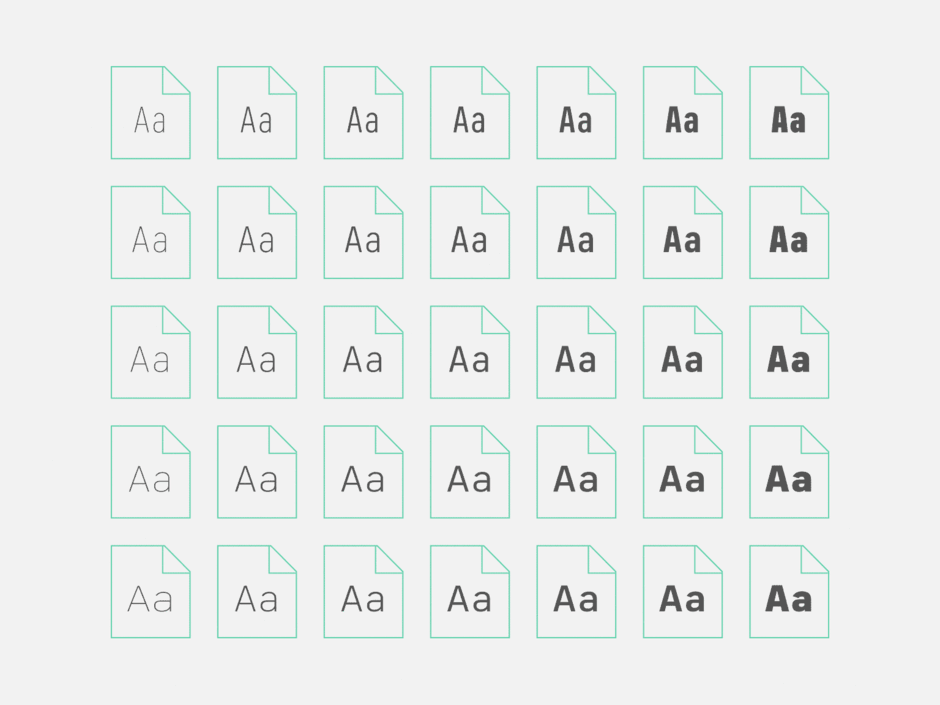
Introducing Variable Fonts
Somewhere between the death of David Bowie and the election of Donald Trump, we all started using our mobile phones far more than our desktops to access the internet.
In 2016, a year that many have hailed as one of the “worst years in history” for its political upheaval, terrorist attacks, natural disasters and untimely celebrity deaths, mobile internet usage overtook desktop for the first time. And according to this year’s Wolfgang Digital KPI Report, 63% of all internet traffic is now coming from mobile and tablet. With the rollout of 5G, this is likely to increase exponentially.
Three seconds
Websites need to load quickly. We all know this, but Google has done extensive research into the subject. They wanted to know how long on average a person is willing to wait for a page to load, before giving up and going elsewhere.
It turns out it’s just 3 seconds.
Websites load even more slowly on your phone, due to processing speeds, memory limits and sometimes internet connection speed. So now that people are accessing the internet primarily through their phones, it’s even more important to have a speedy site. A webpage that loads slowly can cost you customers.
Size matters
At Taylor/Thomas, we are always striving to get page load times as short as possible, using whatever tools we can get our hands on. Keeping the loading time under Google’s recommended 3 seconds can sometimes be a challenge, particularly when the site uses a wide range of font weights or styles. This is because for every variant of a font used on a page, your website has to load a separate font file.
If you’re using a couple of different weights, plus the italic versions of each, that’s going to be quite a few files for your webpage to load. And it’s going to take some time. Not only that, but if they don’t load quickly enough, your users are likely to glimpse a fallback system typeface before the preferred font file loads.
OpenType Font Variations
In an unprecedented collaborative effort between Microsoft, Google, Apple and Adobe, as well as many type designers and foundries, the OpenType Font Variations technology was created.
Known by most as simply ‘variable fonts’, this new technology allows type designers to define the limits of a typeface, and let it scale between. A variable font is one in which the equivalent of multiple individual fonts is package with a single file.
When Fontsmith approached us about their plans for a Variable Fonts microsite, we got very excited. Variable fonts are still very new, so we were keen to get our hands on the tech, but we were also keen to see how much it would improve our website loading times.
Rather than loading each font file separately, we can now load just one file which contains all of the variants. So where we might have needed four files before—let’s say regular, italic, bold and bold italic—now we have one font file that gives us access to the entire range of weights, widths and styles available. Neat, right?
How Variable Fonts work
The variants of each font are controlled along with what are known as axes. Each axis has a ‘tag’, which is a four-letter abbreviation by which it is known. There are five standardised axis names and tags—weight (wght), width (wdth), slant (slnt), optical size (opsz) and italic (ital). Type designers can include any of these, plus build their own custom axes and tags.
Italic can either be on or off, but most axes are a scale decided by the type designer. For example, the weight scale may range from 100 to 900. Slant might be from 0 to 10.
So not only do we now have light, semi-bold, and heavy, but we have everything in between. We’re no longer restricted by predefined weights, so if bold is too bold but medium isn’t bold enough, you can find that perfect weight in between.
Some of the Fontsmith variable fonts have custom axes, which means that we can decide exactly how much we want of FS Kitty’s shadow and outline, and FS Pimlico’s glow.
“The potential for dynamic selection of custom instances within the variations design space — or design-variations space, to use its technical name — opens exciting prospects for fine tuning the typographic palette, and for new kinds of responsive typography that can adapt to best present dynamic content to a reader’s device, screen orientation, or even reading distance.”
– John Hudson, Introducing OpenType Variable Fonts
To find out what axes and scales are available for each typeface, you’ll want to refer to that typeface’s specimen sheet. Alternatively, you can take a look at the font in Photoshop, Illustrator, Sketch, or Firefox’s Developer Tools, where you can see and manipulate the axes available.
Controlling the axes
The axes are controlled through CSS, using the font-variation-settings property*. For example, here we are setting the optical size (opsz) for FS Kim to 120, and the weight (wght) to 180.
We anticipate these rendering issues to be fixed in upcoming versions of Chrome, and browser support to increase rapidly, although legacy browsers such as IE11 will always require a fallback.
We’re always excited to work on a project with Fontsmith, but this one has been especially fun because the technology is so new and exciting.